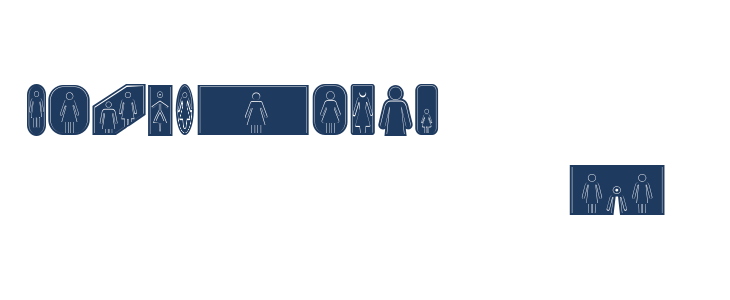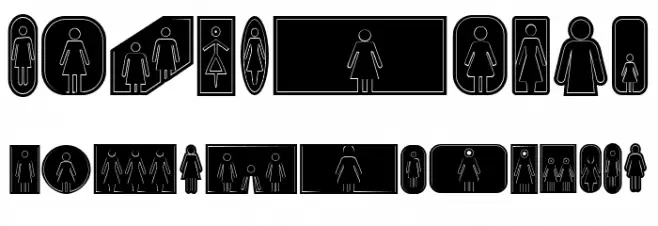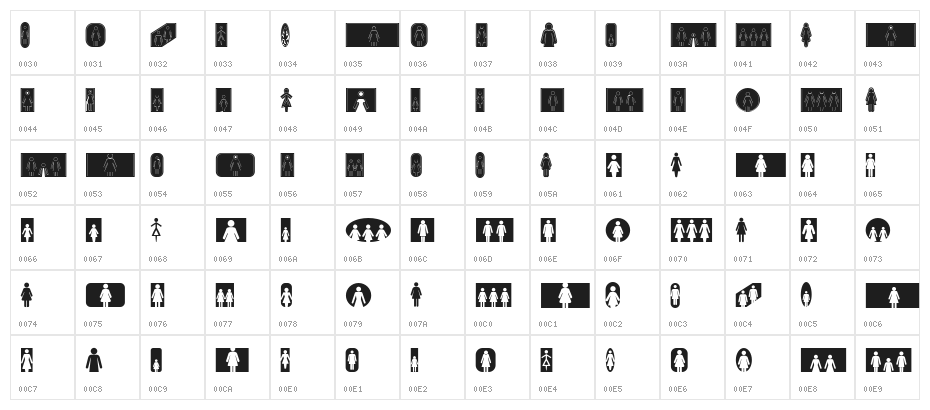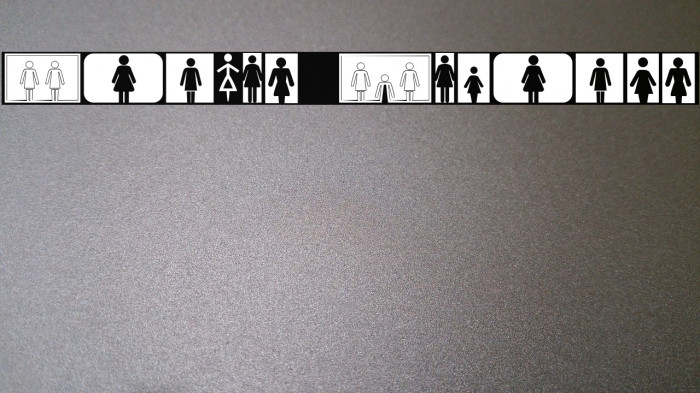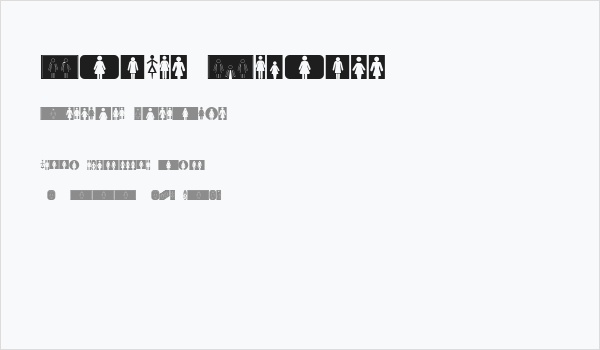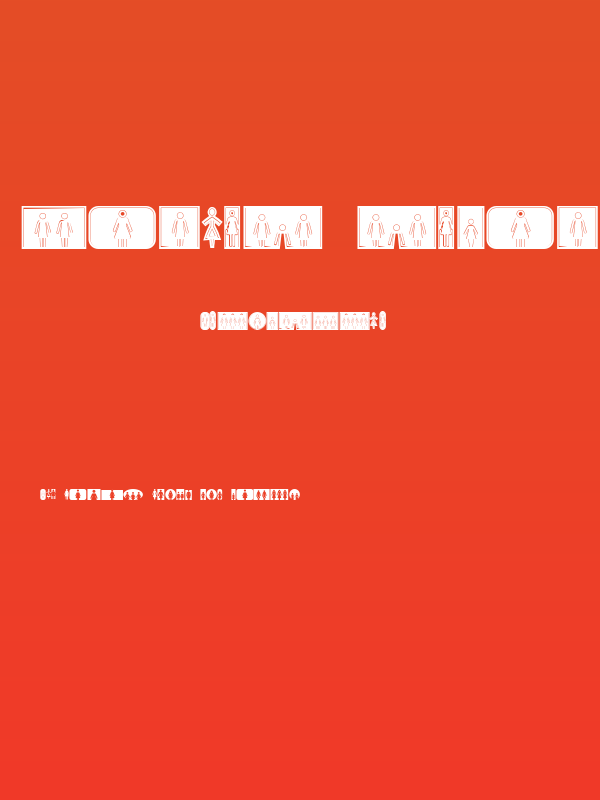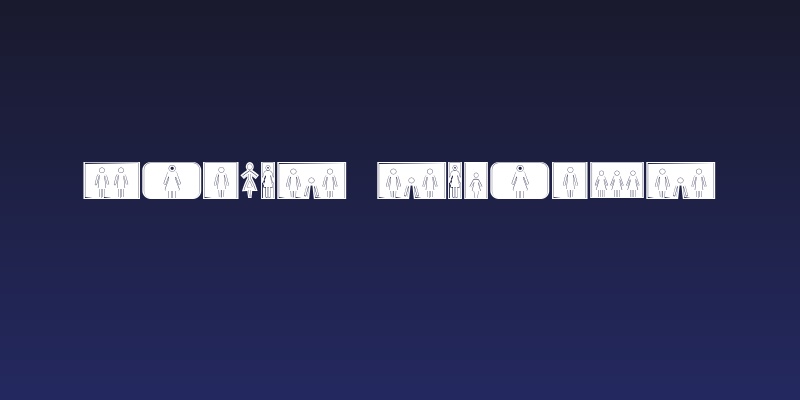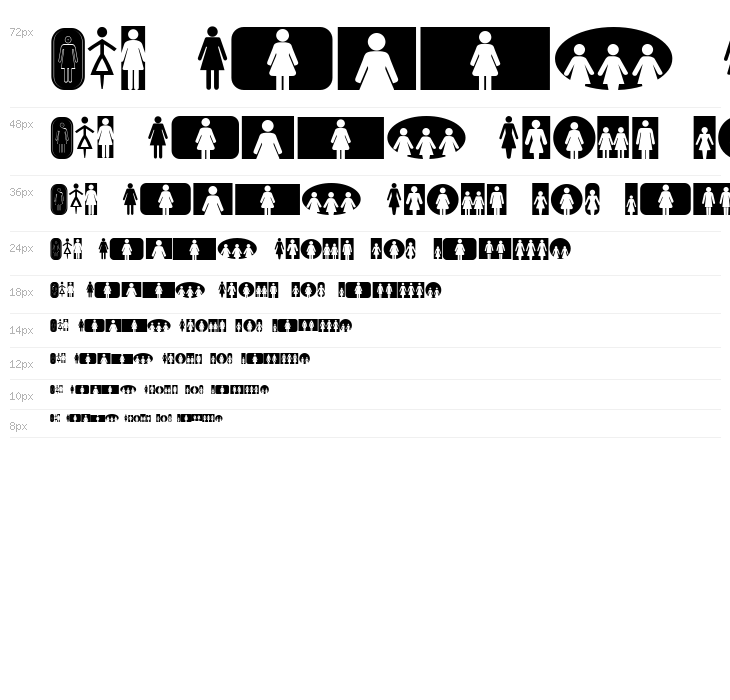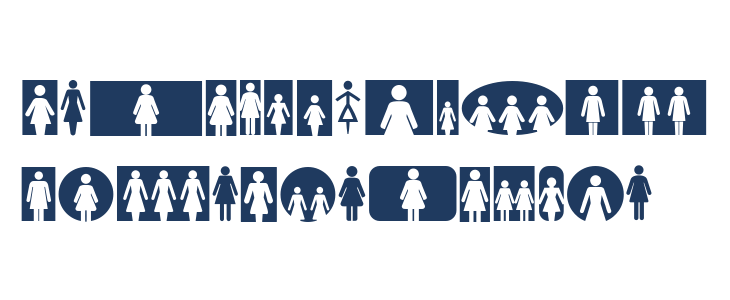
Mulher Regular Font
A pictogram-based decorative font featuring stylized female figures in various arrangements and geometric enclosures, using high-contrast black and white silhouettes for each character.
Decorative pictogram font with stylized female icons from Uncategorized fonts.
- Proposed Projects: Infographics, signage, posters, gender-related campaigns, educational materials, visual storytelling.
- Overall Style: Decorative, Modern, Pictographic
- Use Case: Logos, Posters, Signage, Infographics